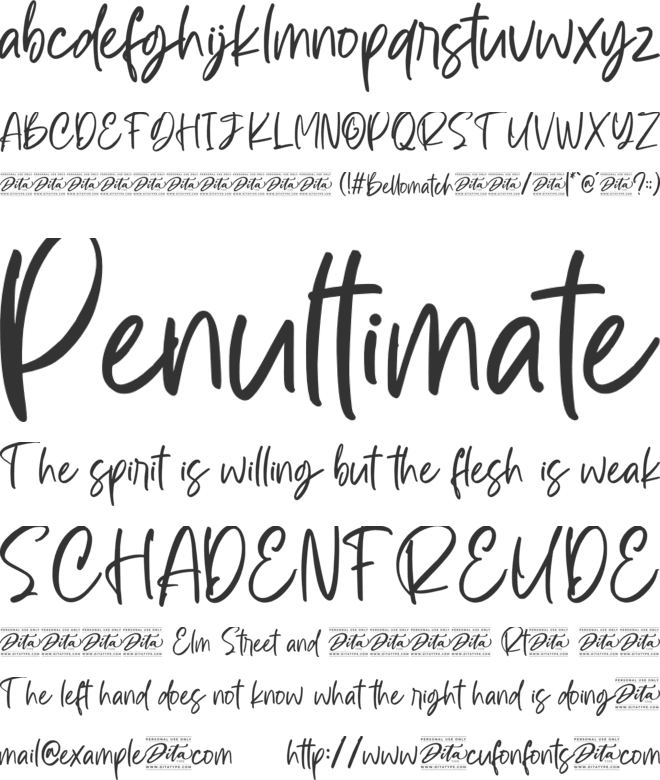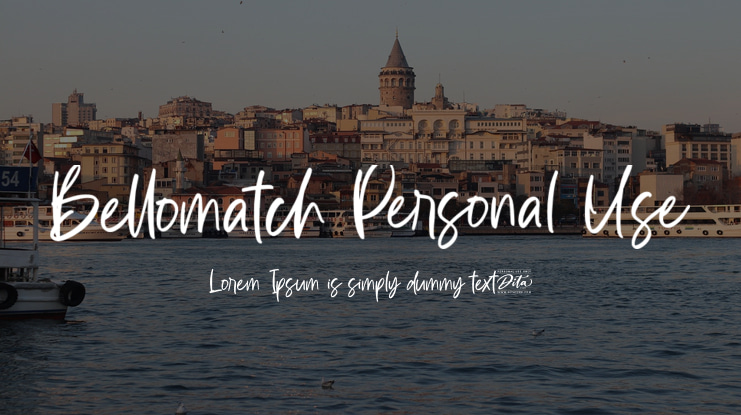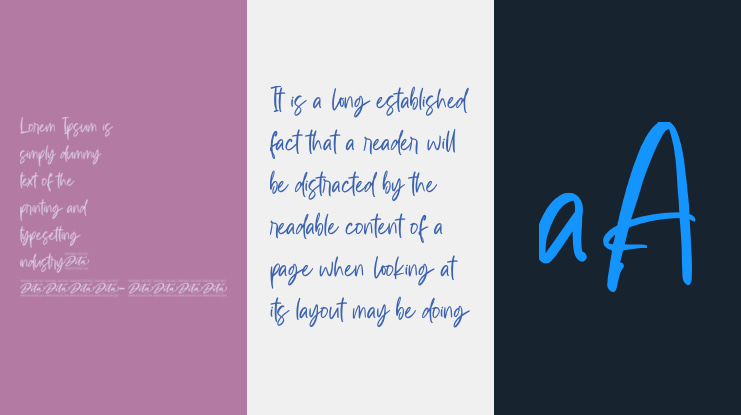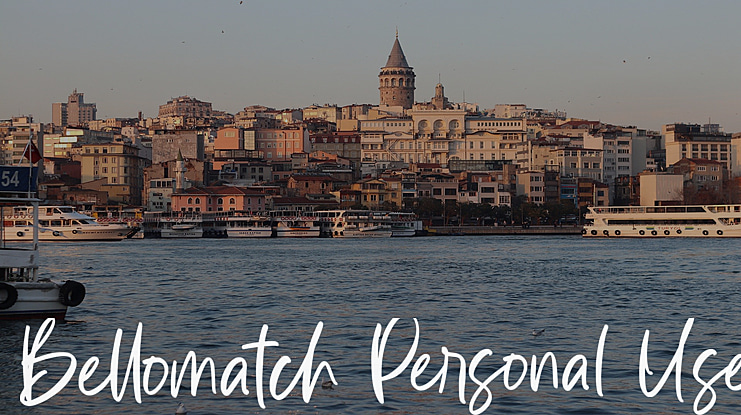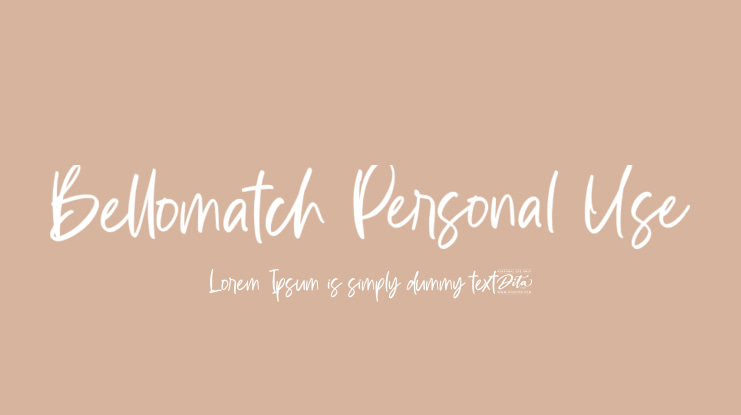
Bellomatch is a lovely handwritten font. Made for any professional project branding. It is the best for logos, branding and quotes. Every letter has a unique and beautiful touch.